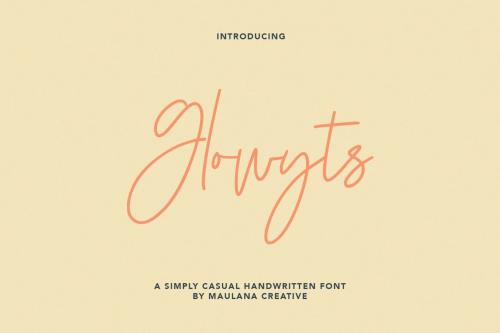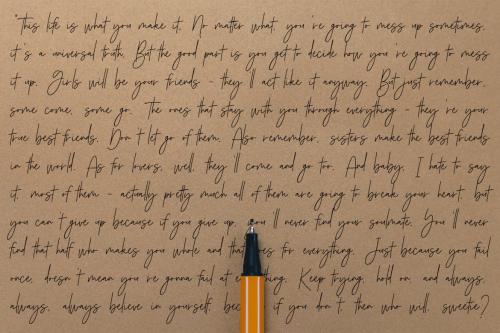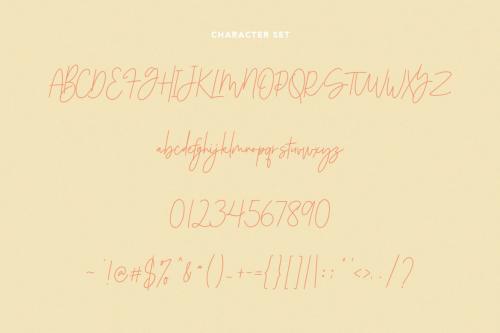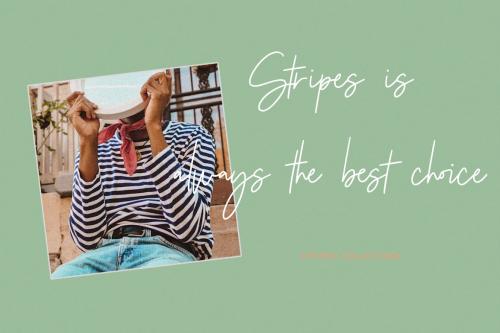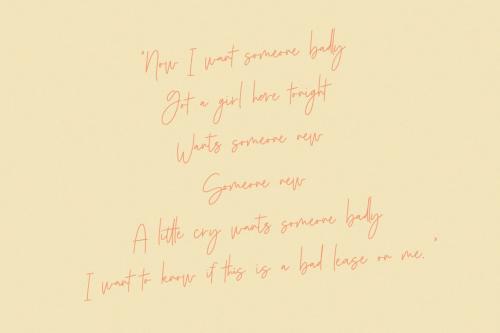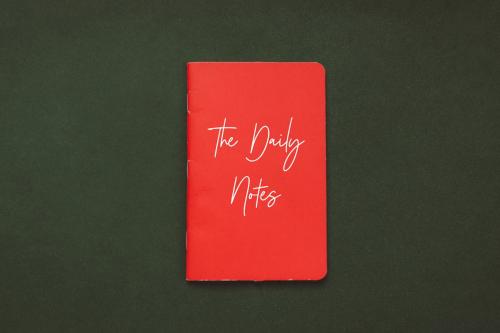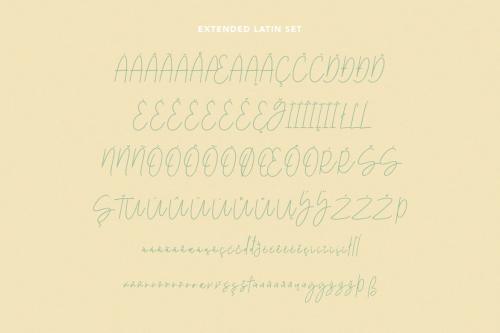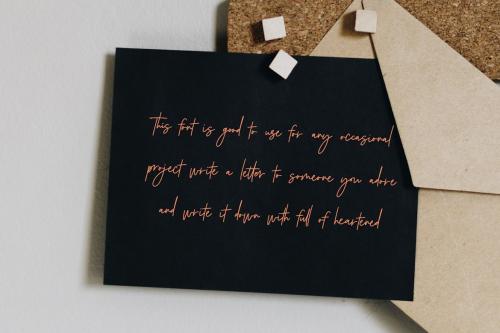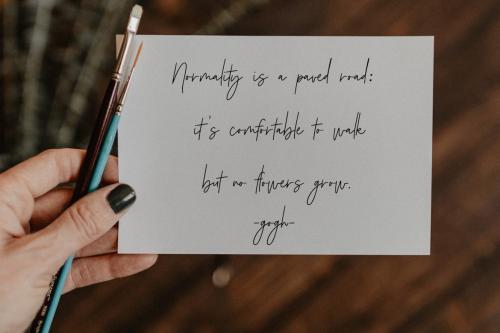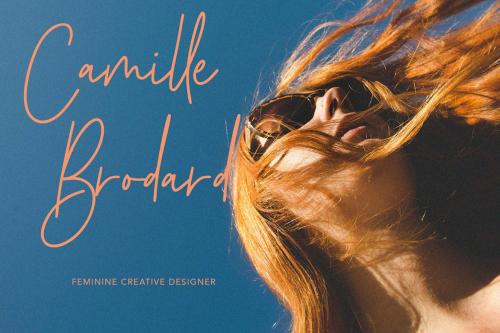
Glowyts Simply Casual Handwritten Font
Glowyts is a modern simply casual handwritten font. Inspired by the peoples handwriting letters in the envelope or their notes. Glowyts includes opentype features Many Ligatures. Glowyts support multilingual more than 100+ language. This font is good for logo design, Movie Titles, Books Titles, a short text even a long text letter and any awesome project you create. Make a stunning work with Glowyts handwritten font.